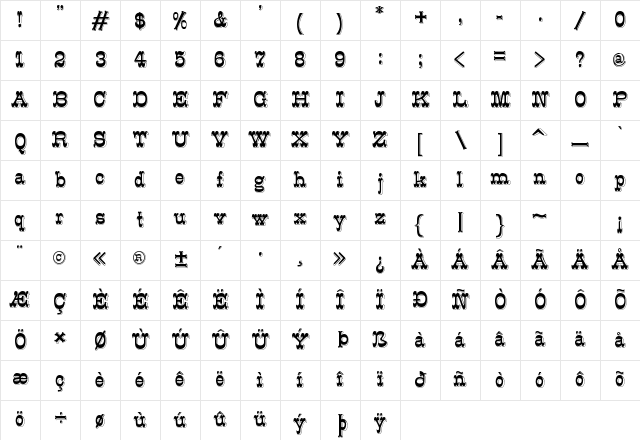
K22 Eclair Regular
Foundry: Toto
Designer: Toto
K22 Eclair Family
Design Context for K22 Eclair
K22 Eclair is a composed and adaptable typeface that performs quietly and consistently across a wide range of design contexts.
Who designed the K22 Eclair Regular font?
This font was published by Toto. Check the technical specs section for copyright and designer details.